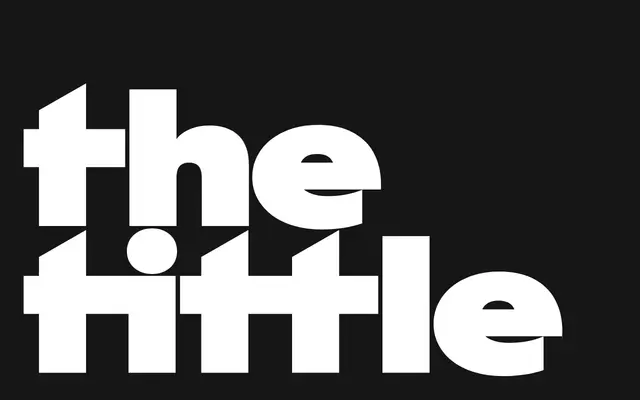
Armada
A neo-grotesque sans by Ian Party, offered as a variable font with eight static styles and broad Latin language coverage.
Designed by Ian Party and published through Newglyph, Armada follows neo-grotesque conventions with a clean, upright construction suited to branding and typographic applications. The family ships as a variable font spanning a weight axis, alongside 382-glyph static styles in OTF, TTF and WOFF2 formats. Language support is extensive across Latin-based writing systems, covering dozens of African, European and Southeast Asian languages.
Explicitly described as incorporating Neo-Grotesque principles, with the clean, neutral construction typical of that genre. The variable weight axis and minimal glyph set reinforce a modernist, functional approach.